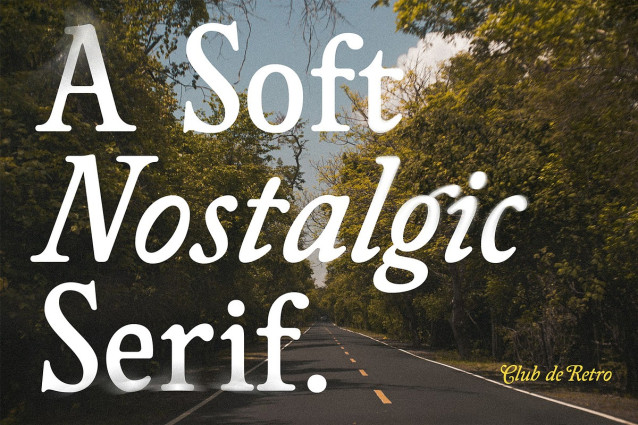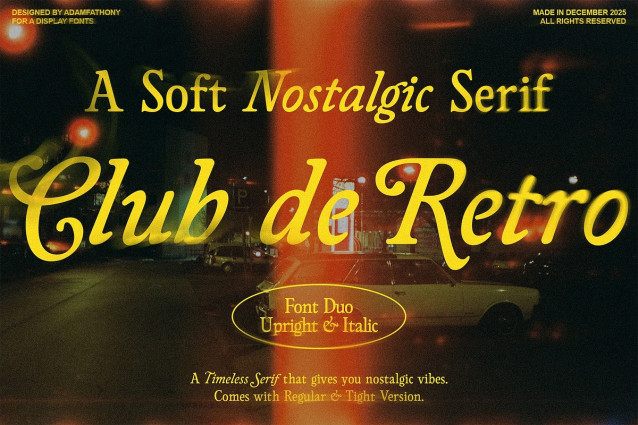
Club de Retro Font
Club de Retro Font is a soft nostalgic serif family that combines vintage charm with modern clarity, crafted for designers who want their typography to feel warm, memorable, and highly expressive.